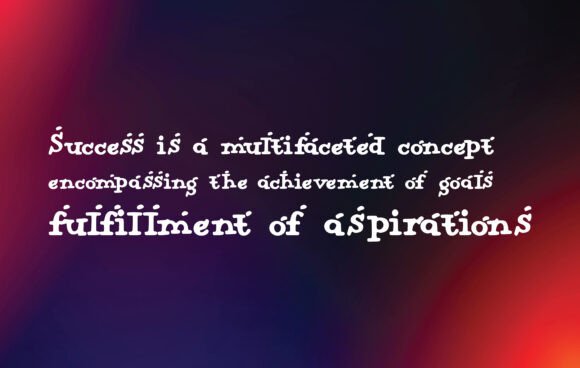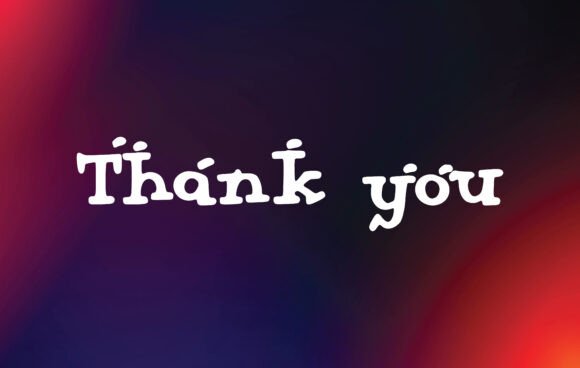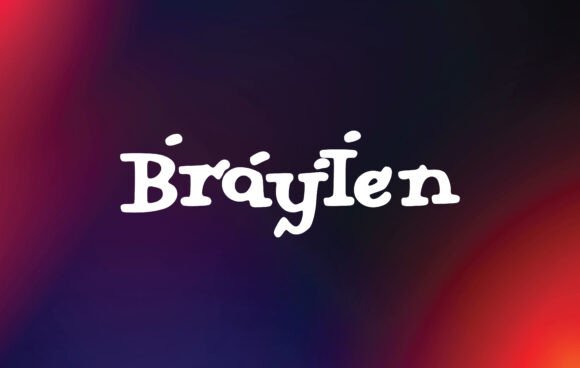
Braylen Font: Elevate Your Creative Projects with this Lovely Handwritten Font
Are you a designer or crafter looking for a font that can take your creative ideas to the next level? Look no further than Braylen Font, a beautiful handwritten font that is sure to impress. With its unique and elegant style, Braylen Font is the perfect choice for creating eye-catching logos, branding, and quotes that will leave a lasting impression on your audience.
What Makes Braylen Font So Special?
Braylen Font is a lovely and beautiful handwritten font that has been designed to help you create stunning visual content. Its elegant and refined style makes it perfect for a wide range of creative projects, from logos and branding to quotes and social media graphics. Whether you’re a professional designer or a crafty DIY enthusiast, Braylen Font is sure to become a favorite in your font collection.
The Benefits of Using Braylen Font
So why choose Braylen Font for your creative projects? Here are just a few benefits of using this amazing font:
• Elegant and Refined Style: Braylen Font has a unique and elegant style that is sure to impress your audience. Its refined lines and curves make it perfect for creating sophisticated and professional-looking visual content.
• Versatile and Flexible: Braylen Font is a versatile font that can be used for a wide range of creative projects, from logos and branding to quotes and social media graphics.
• Easy to Read: Despite its elegant style, Braylen Font is easy to read and understand, making it perfect for creating visual content that needs to communicate a message.
• Unique and Creative: Braylen Font is a one-of-a-kind font that will help you stand out from the crowd. Its unique style and character will add a touch of personality to your creative projects.
How to Use Braylen Font in Your Creative Projects
Using Braylen Font in your creative projects is easy and straightforward. Here are a few tips to get you started:
• Logos and Branding: Use Braylen Font to create stunning logos and branding materials that will help you establish a strong visual identity.
• Quotes and Social Media Graphics: Use Braylen Font to create eye-catching quotes and social media graphics that will help you engage with your audience.
• Invitations and Stationery: Use Braylen Font to create beautiful invitations and stationery that will add a touch of elegance to your correspondence.
Tips for Getting the Most Out of Braylen Font
Here are a few tips for getting the most out of Braylen Font:
• Experiment with Different Sizes and Colors: Don’t be afraid to experiment with different sizes and colors of Braylen Font to find the perfect combination for your creative project.
• Pair it with Other Fonts: Braylen Font pairs well with other fonts, so don’t be afraid to experiment with different font combinations to create a unique and interesting visual effect.
• Use it Consistently: Use Braylen Font consistently across all of your creative projects to establish a strong visual identity and build recognition with your audience.
In conclusion, Braylen Font is a lovely and beautiful handwritten font that has the potential to take your creative ideas to the highest level. Its elegant and refined style makes it perfect for creating eye-catching logos, branding, and quotes that will leave a lasting impression on your audience. Whether you’re a professional designer or a crafty DIY enthusiast, Braylen Font is sure to become a favorite in your font collection.